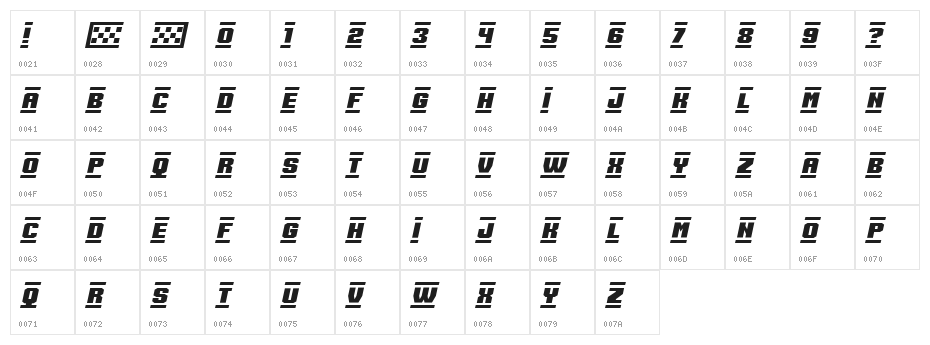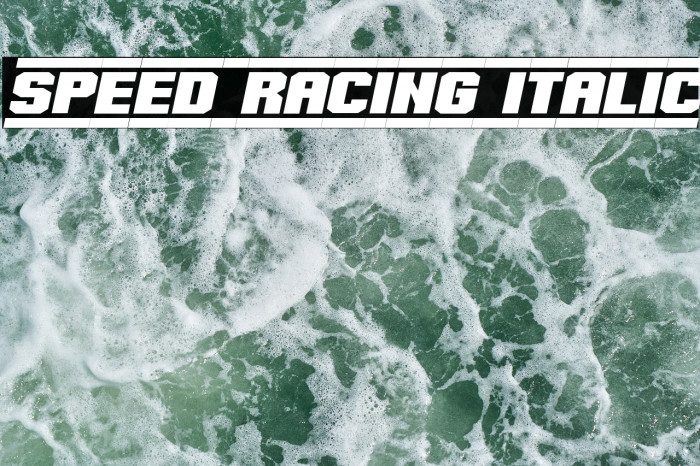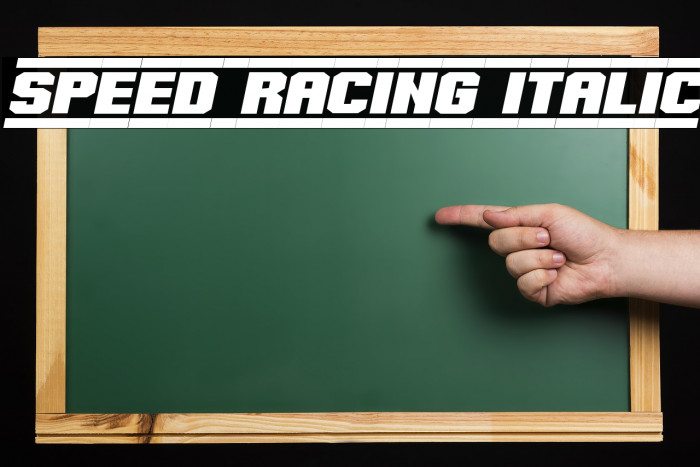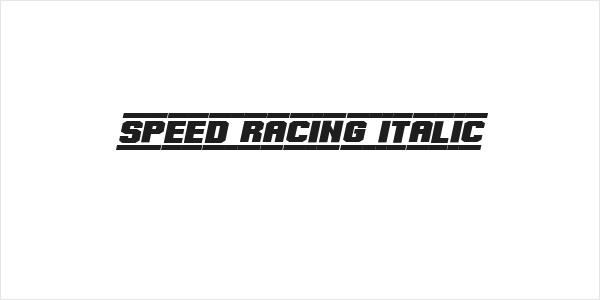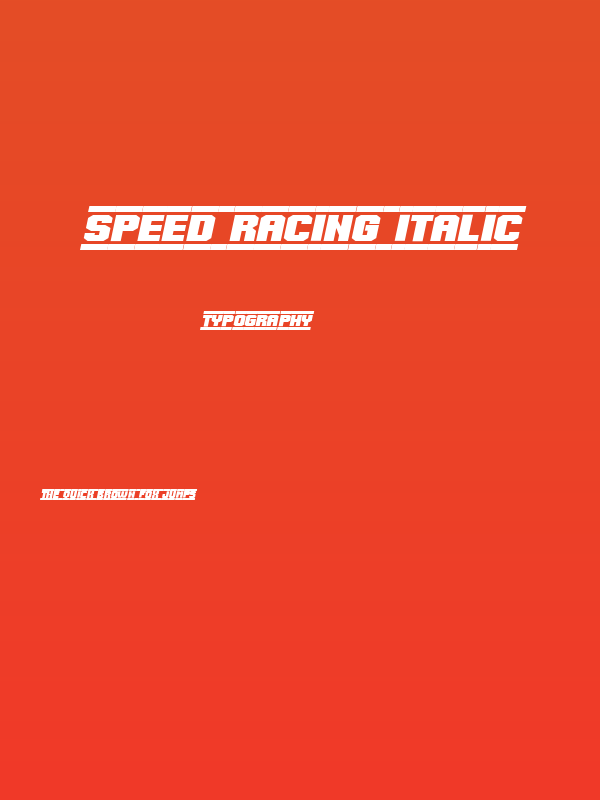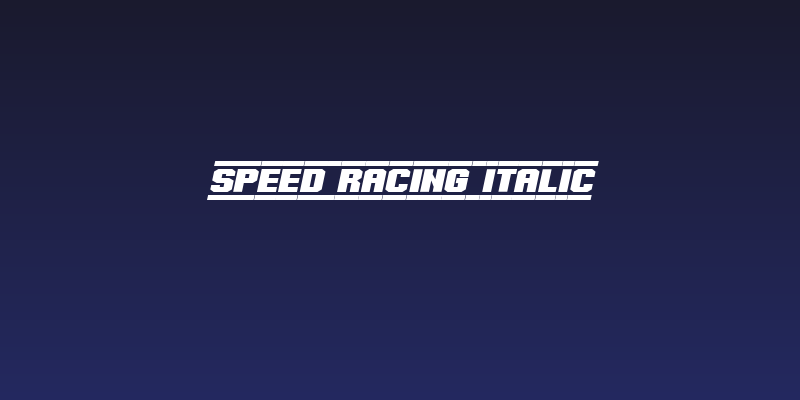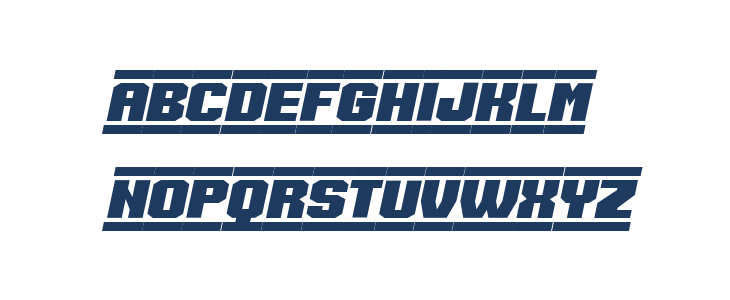
Speed Racing Italic Font
Speed Racing Italic Description
This dynamic and bold typeface exudes a sense of speed and motion, with its italicized, forward-leaning characters. The thick, blocky letters are designed with a strong geometric structure, giving it a robust and impactful presence. The font features sharp angles and a slightly condensed width, enhancing its energetic and aggressive style. The uppercase letters are particularly striking, while the numerals and special characters maintain the same boldness and angularity. This font is ideal for projects that require a sense of urgency or excitement, such as racing themes or sports branding.
| Proposed Projects | Ideal for sports branding, racing event posters, automotive advertisements, and dynamic logo designs. |